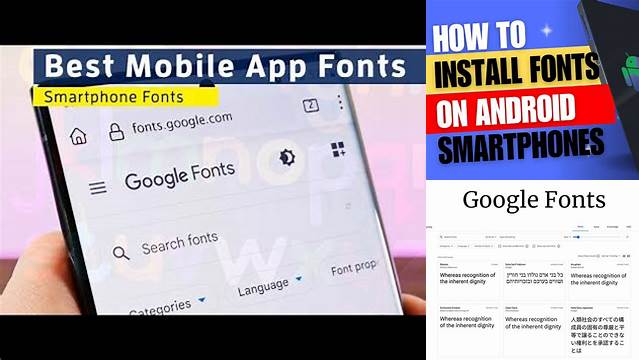
Google Fonts On Android: A Comprehensive Guide
Hey guys! Let's dive into the awesome world of Google Fonts and how to make them shine on your Android projects. Using Google Fonts in your Android apps is a fantastic way to add that professional touch and make your UI stand out. This guide is going to walk you through everything, from the basics of font selection to the nitty-gritty of implementation. So, grab your coffee, and let's get started! We will discuss the best practices for optimal implementation in Android development. The goal here is to ensure that the integration is not only beautiful but also efficient, contributing to a seamless user experience. We'll begin by reviewing some popular and widely-used fonts that are perfect for any kind of project. Let's create amazing Android applications using Google Fonts.
1. Choosing the Right Google Fonts for Your Android App
Choosing the perfect Google Fonts for your Android app is like picking the right outfit – it sets the tone! You need to consider a few key things to ensure the font complements your app's overall design and purpose. First, think about the mood you want to create. Is your app playful and friendly, or serious and professional? Fonts like Roboto and Open Sans are super versatile and work well for a clean, modern look. If you're going for a more elegant vibe, Playfair Display or Lora could be great choices. Poppins also provides a really clean and easy-to-read appearance. Next, consider readability. Especially for longer text, you want a font that's easy on the eyes. Avoid super-stylized fonts that might be hard to decipher at smaller sizes. Think about the hierarchy of your text. You can use different fonts, weights, and sizes to create a visual hierarchy, making it easier for users to scan and understand information. Also, don't forget about branding. Your font choice should align with your brand's identity. Does your brand have a particular font already? If not, find something that captures its essence. When selecting a typeface, carefully consider the character sets and language support available. Ensure that the fonts you choose include the necessary characters for the languages your application will support, as this is crucial for global reach and inclusivity. Finally, always test your font choices on different devices and screen sizes to make sure they look good everywhere. It's all about finding the right balance to achieve the perfect aesthetic for your app. By prioritizing these factors, you'll be well on your way to creating a visually stunning and user-friendly app experience.
5. Applying Font Styles: Bold, Italic, and More
Let's get into the fun details! Applying font styles like bold, italic, and other variations can really make your Google Fonts pop. There are two main ways to do this: using XML and programmatically. In XML, you can use attributes like `android:textStyle=